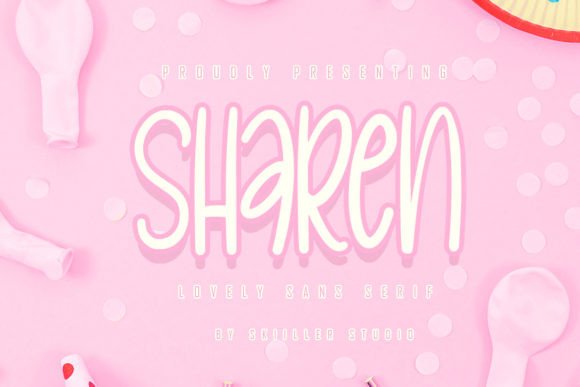
Sharen Font: The Perfect Handwritten Font for Children-Themed Designs
When it comes to creating designs for children, the right font can make all the difference. You want a font that is playful, fun, and engaging, yet also easy to read and understand. That’s where Sharen Font comes in – a cool, playful, and lovely handwritten font that is perfect for children-themed designs.
What is Sharen Font?
Sharen Font is a type of handwritten font that is designed to be fun, playful, and engaging. It is a carefully crafted font that is perfect for use in children-themed designs, such as children’s books, educational materials, posters, and more.
The font features a unique and distinctive style that is sure to capture the attention of children and adults alike. With its playful and whimsical feel, Sharen Font is the perfect choice for anyone looking to add a touch of fun and personality to their designs.
Characteristics of Sharen Font
So, what makes Sharen Font so special? Here are just a few of its key characteristics:
- Playful and fun: Sharen Font is designed to be playful and fun, making it perfect for children-themed designs.
- Handwritten style: The font features a beautiful, handwritten style that gives it a personal and unique feel.
- Easy to read: Despite its playful style, Sharen Font is easy to read and understand, making it perfect for use in educational materials and children’s books.
- Versatile: Sharen Font can be used in a wide range of designs, from posters and flyers to children’s books and educational materials.
Why Use Sharen Font?
So, why should you use Sharen Font in your designs? Here are just a few reasons:
- Perfect for children-themed designs: Sharen Font is specifically designed for use in children-themed designs, making it the perfect choice for anyone looking to create fun and engaging designs for kids.
- Adds personality to your designs: Sharen Font adds a touch of personality and whimsy to your designs, making them stand out from the crowd.
- Easy to use: Sharen Font is easy to use and can be easily integrated into your designs.
- High-quality: Sharen Font is a high-quality font that is designed to produce crisp and clear results, even at small sizes.
How to Use Sharen Font?
Using Sharen Font in your designs is easy. Here are just a few tips:
- Pair with bright colors: Sharen Font looks amazing when paired with bright and bold colors, making it perfect for use in children-themed designs.
- Use in titles and headings: Sharen Font is perfect for use in titles and headings, where its playful and whimsical style can really shine.
- Experiment with different sizes: Sharen Font looks great at a wide range of sizes, from large titles to smaller body text.
- Combine with other fonts: Sharen Font can be combined with other fonts to create a unique and interesting look.
Tips for Using Sharen Font in Children-Themed Designs
Here are a few tips for using Sharen Font in children-themed designs:
- Keep it simple: When designing for children, it’s often best to keep things simple and easy to understand. Sharen Font is perfect for use in simple and easy-to-read designs.
- Use bright colors: Children love bright and bold colors, so be sure to pair Sharen Font with some fun and vibrant colors.
- Make it fun: The most important thing when designing for children is to make it fun. Sharen Font is designed to be playful and fun, so be sure to let its personality shine through in your designs.
In conclusion, Sharen Font is a cool, playful, and lovely handwritten font that is perfect for children-themed designs. Its unique and distinctive style makes it a great choice for anyone looking to add a touch of fun and personality to their designs.
Whether you’re designing a children’s book, creating educational materials, or simply looking for a fun and playful font to use in your designs, Sharen Font is a great choice. So why not give it a try and see the difference it can make in your designs?
FAQs About Sharen Font
- Q: What is Sharen Font?
A: Sharen Font is a cool, playful, and lovely handwritten font that is perfect for children-themed designs.
- Q: Is Sharen Font easy to read?
A: Yes, Sharen Font is easy to read and understand, making it perfect for use in educational materials and children’s books.
- Q: Can I combine Sharen Font with other fonts?
A: Yes, Sharen Font can be combined with other fonts to create a unique and interesting look.